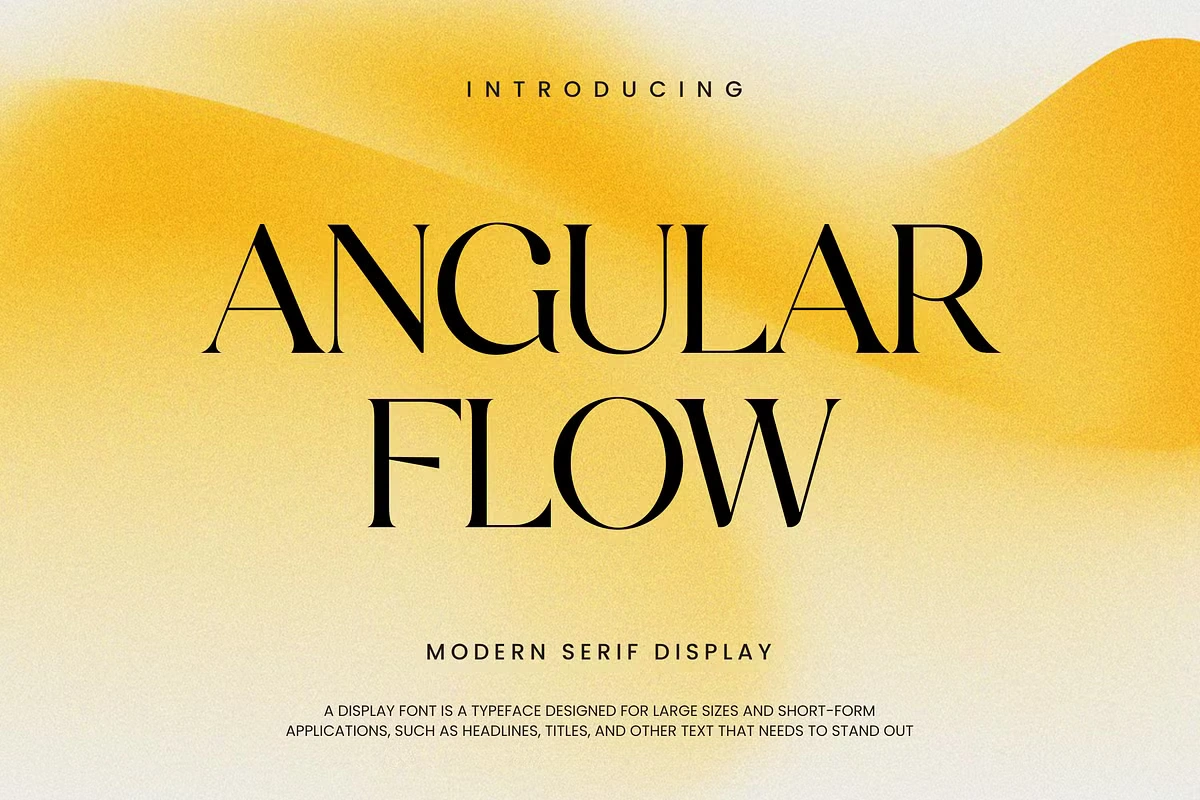
Angular Flow Font is a stylish and modern serif display font, designed to bring elegance and uniqueness to your projects. With its sharp yet smooth curves, this font stands out beautifully, making it a perfect choice for creative designs. Whether you’re looking to add a touch of sophistication or make a bold statement, Angular Flow provides versatility and charm.
This font is well-suited for various design needs, including logos, wedding invitations, typography quotes, and magazine or book covers. Its clean and eye-catching letterforms ensure readability while maintaining an artistic appeal. The balance between modern aesthetics and classic elements makes it an excellent choice for both digital and print projects.
From website headers to branding materials, Angular Flow serif display font adapts effortlessly to different styles and themes. Whether used for professional branding or personal creative works, it enhances the visual impact of any design. Explore the possibilities and let Angular Flow elevate your typography with elegance and character.